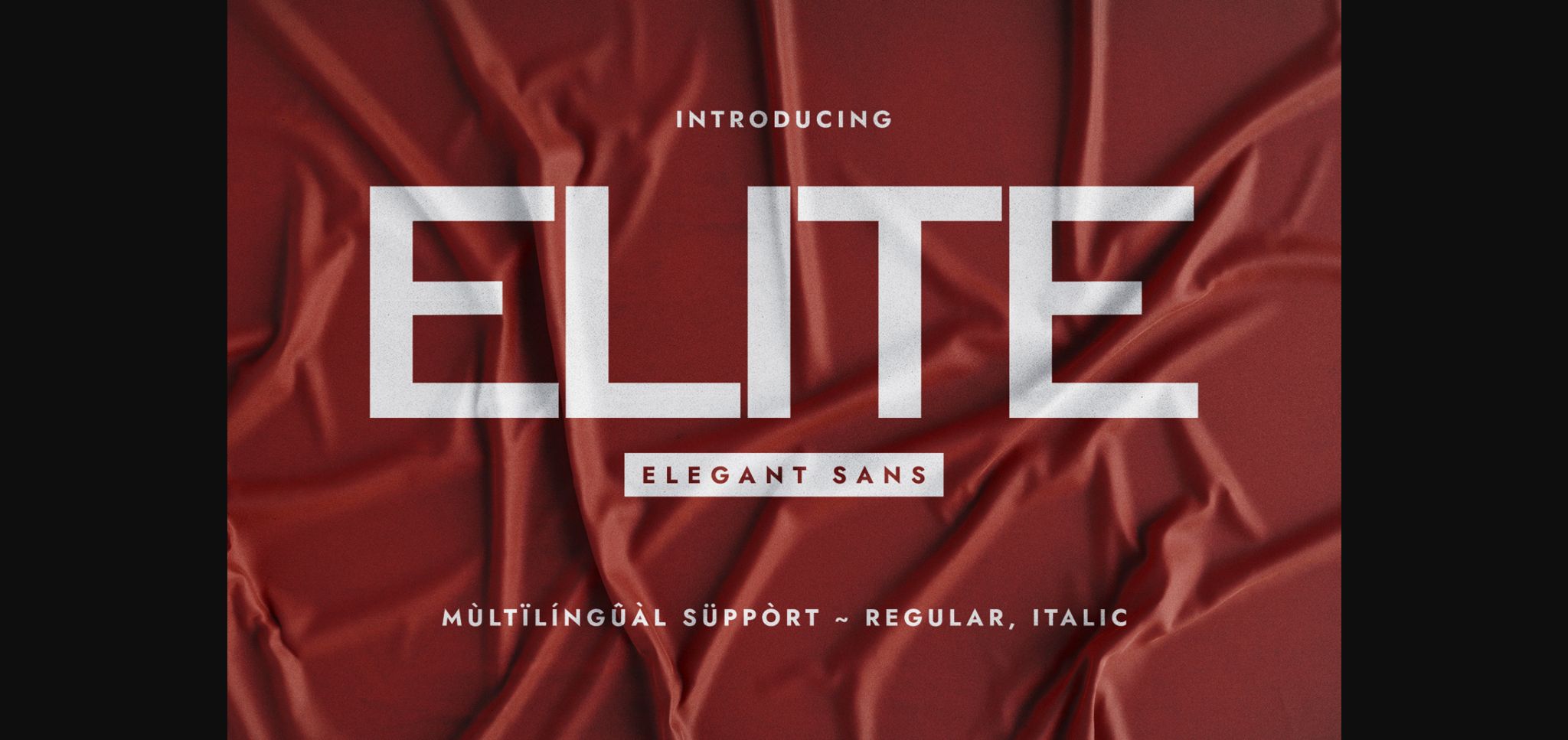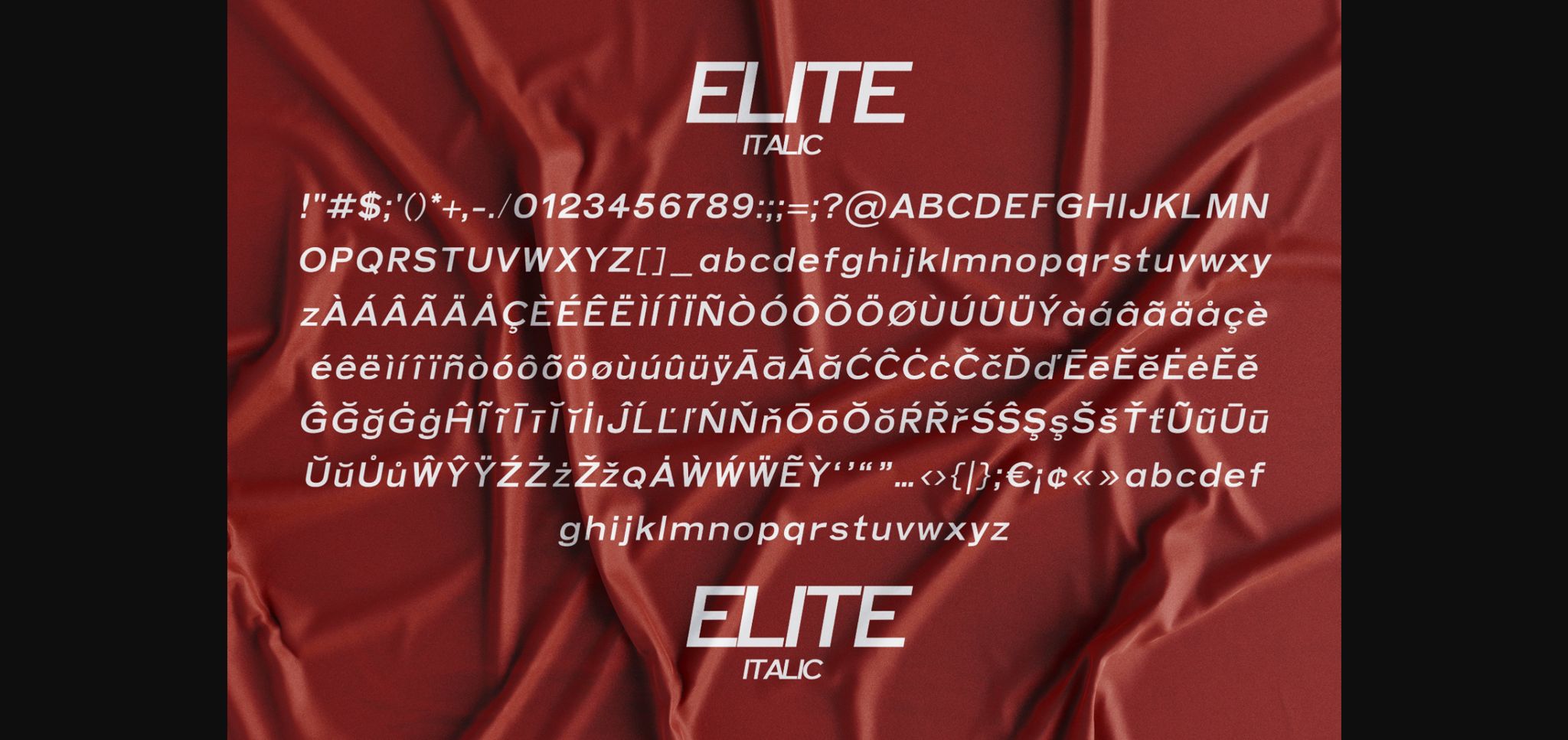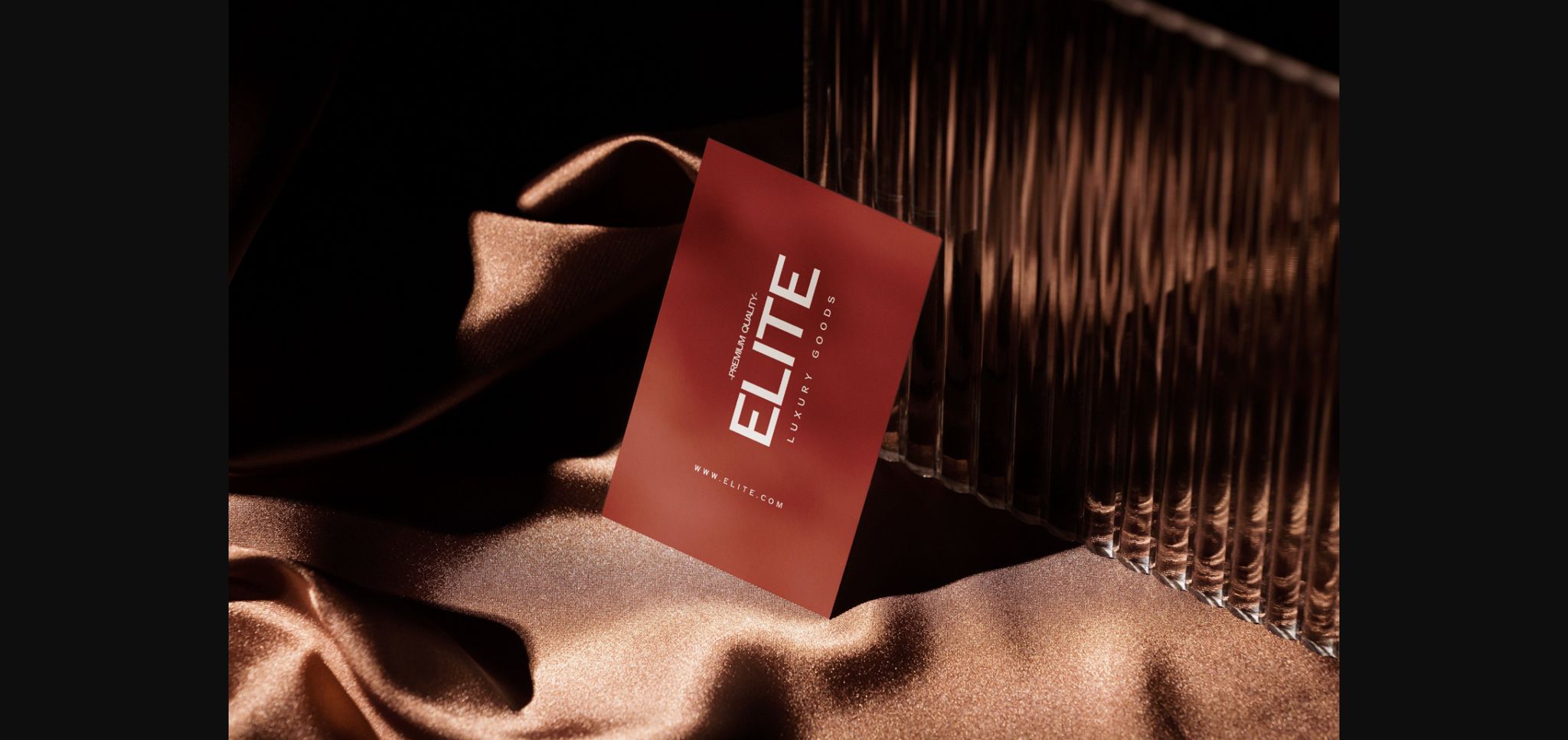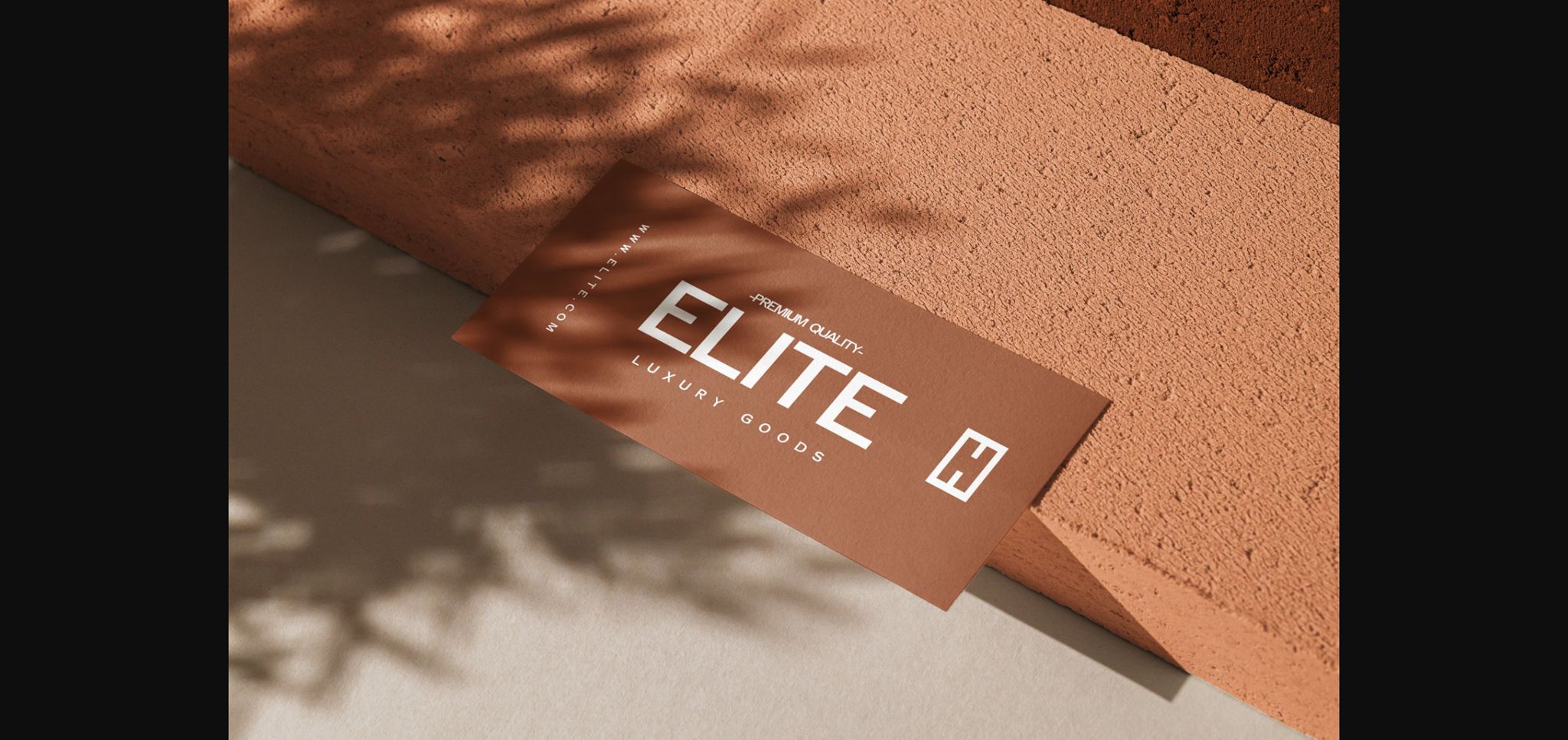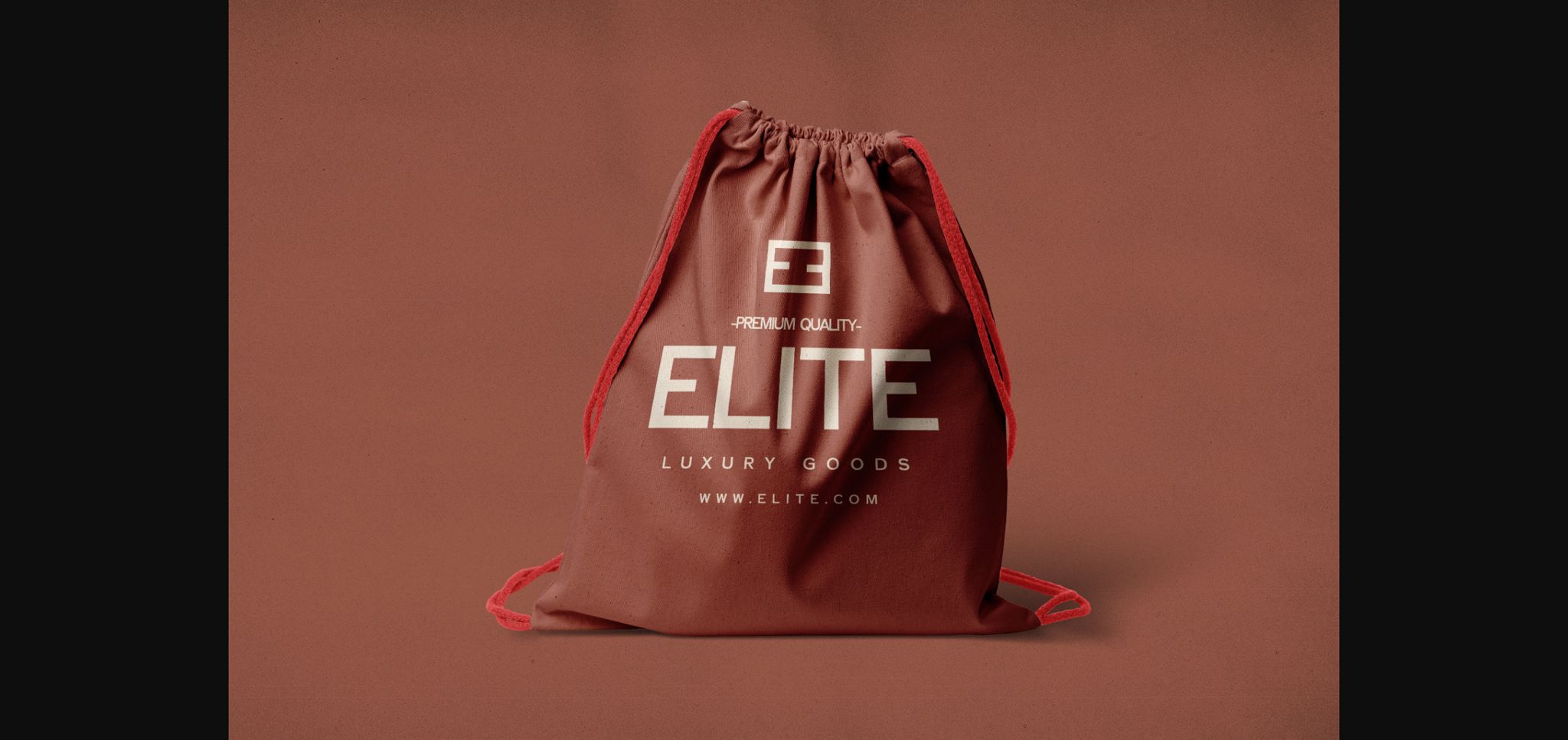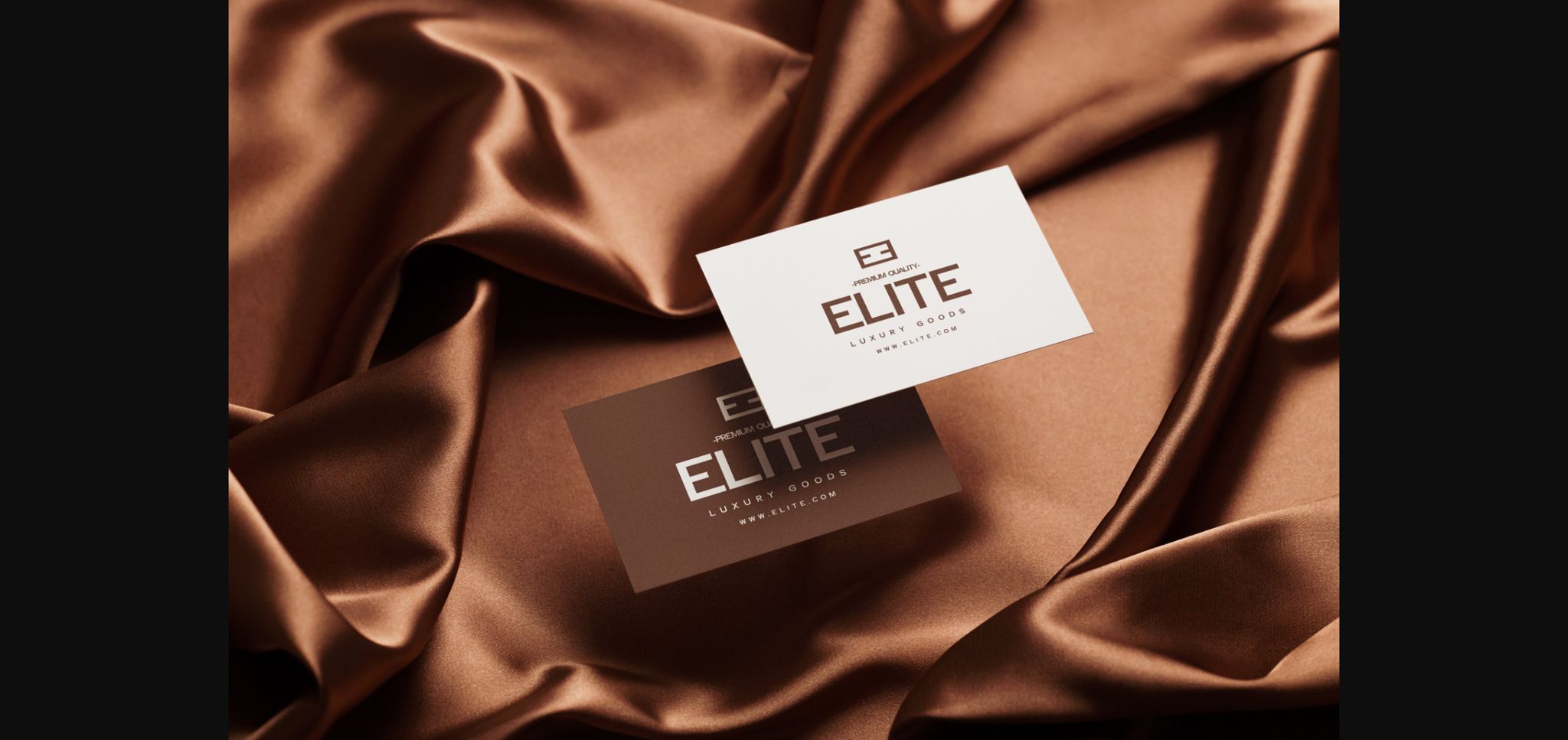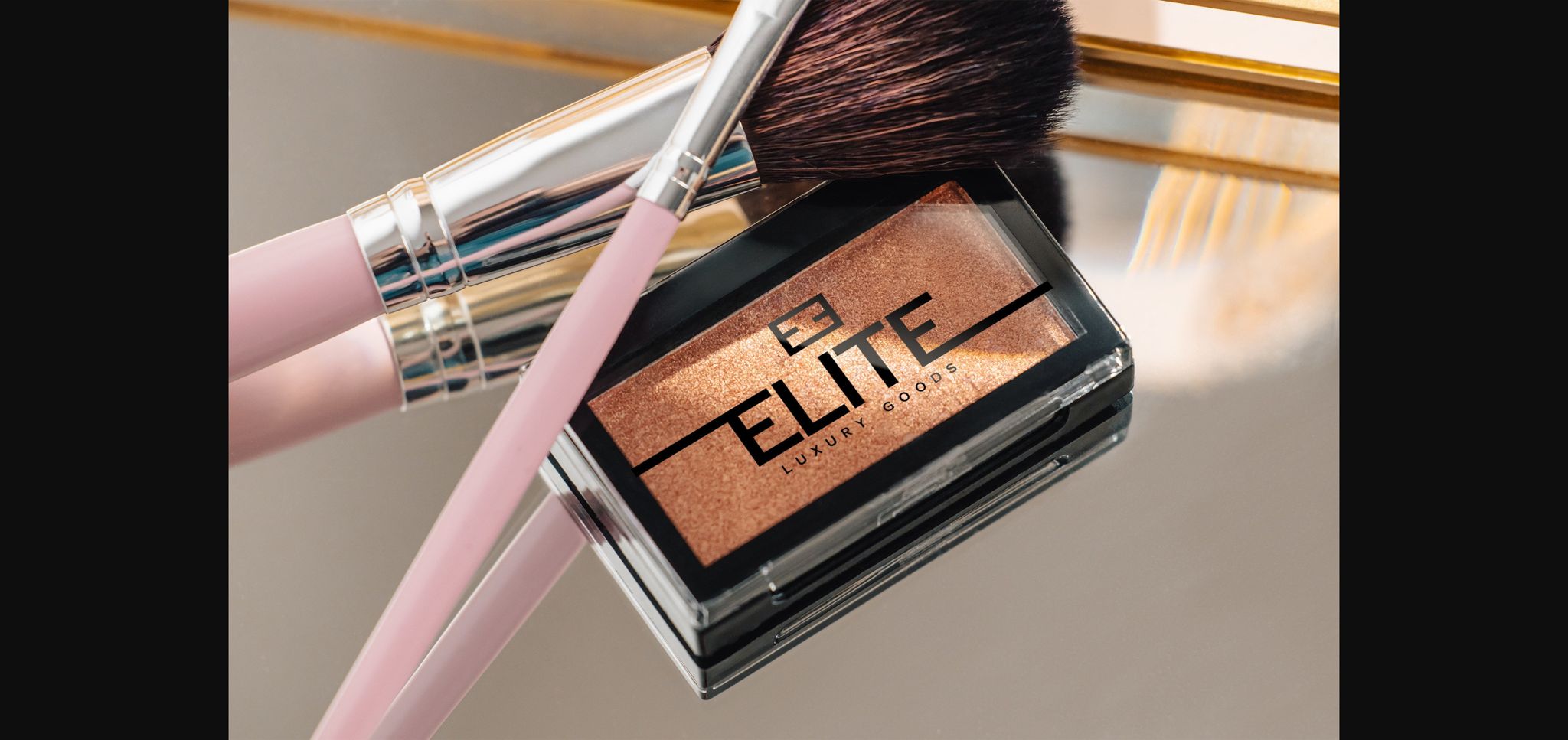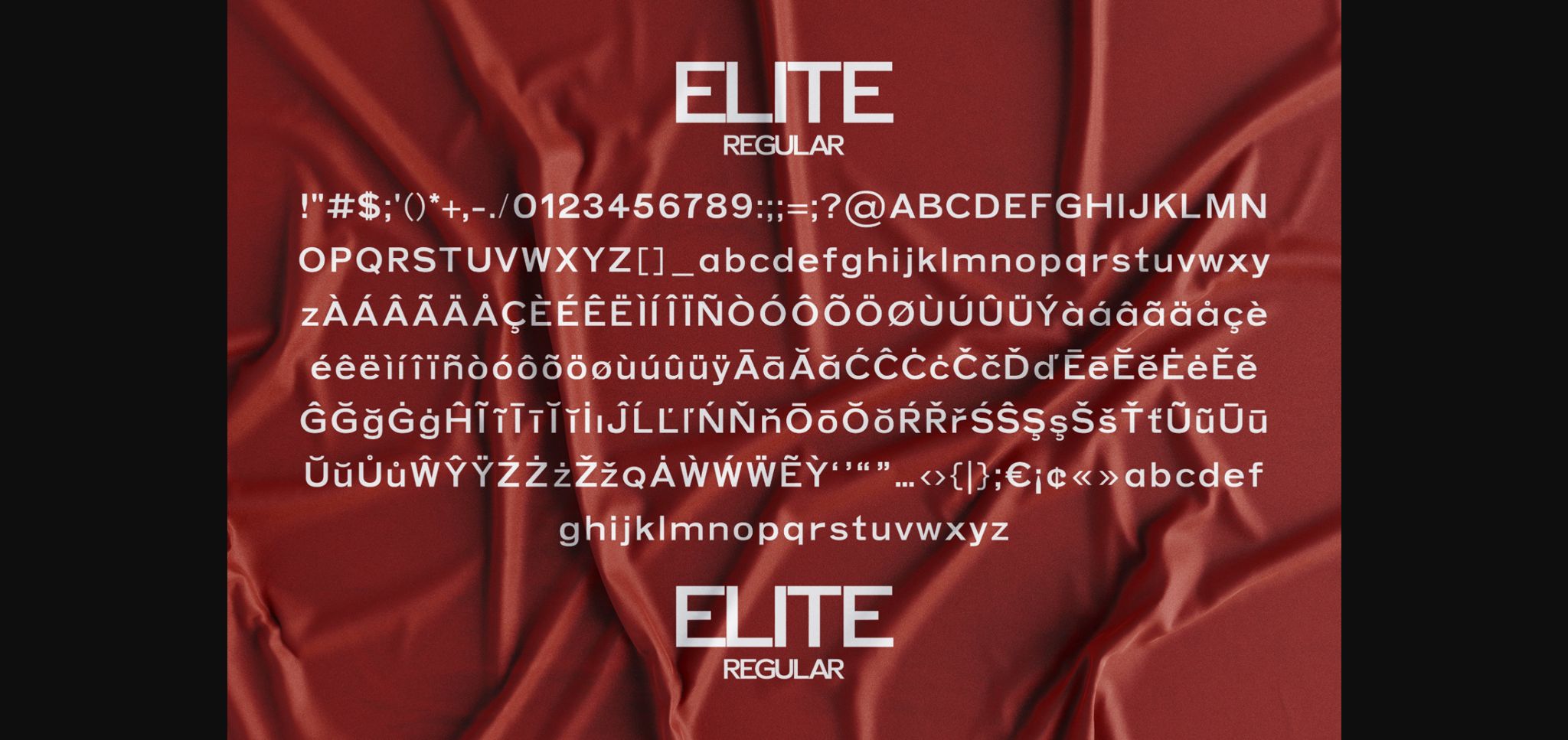
Elite Font
About Elite Font
Elite is an elegant, minimalistic, and chic sans serif typeface. Its geometrical glyphs construction and the fact that it’s inspired by swiss type design render it an optimal choice when you design themes that require minimalist and luxurious type. It suits a wide range of creations such as packaging design, posters, perfume, brand identity names, etc. Use it in your creative idea, and you will notice how it fastly becomes one of your favorite choices.